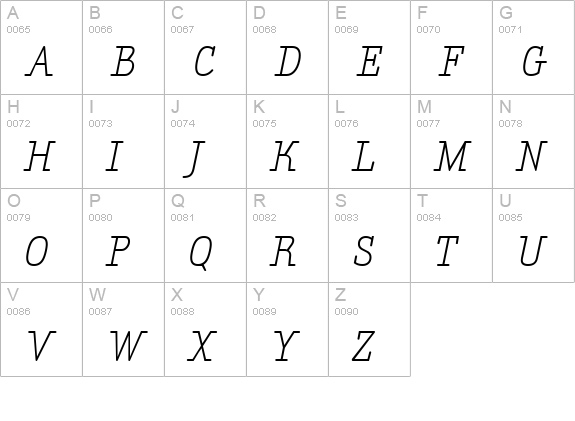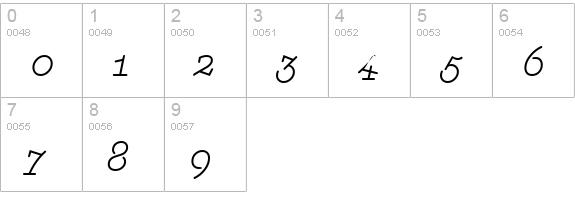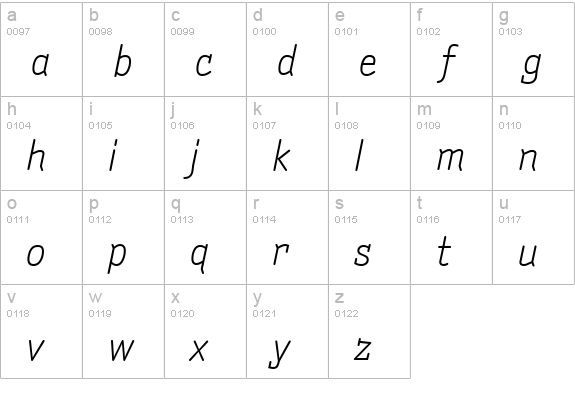
AmintaItalic Font Details
AmintaItalic is a beautifully crafted font that exudes elegance and sophistication. Its graceful curves and delicate serifs make it perfect for adding a touch of refinement to any design project. The italic style of this font adds a sense of flair and movement, making it ideal for use in headings, quotes, and other attention-grabbing elements. What sets AmintaItalic apart is not only its timeless aesthetic appeal, but also the fact that it is available for free download at FontsMarket.com. This means that you can easily access and use this stunning font in your projects without any cost involved. Whether you're working on a website, branding materials, or any other creative endeavor, AmintaItalic is sure to elevate your design with its sophisticated charm. Don't miss the opportunity to enhance your projects with the exquisite AmintaItalic font, now freely available for download at FontsMarket.com. Unlock the beauty and elegance of this font to bring a touch of luxury to your designs.